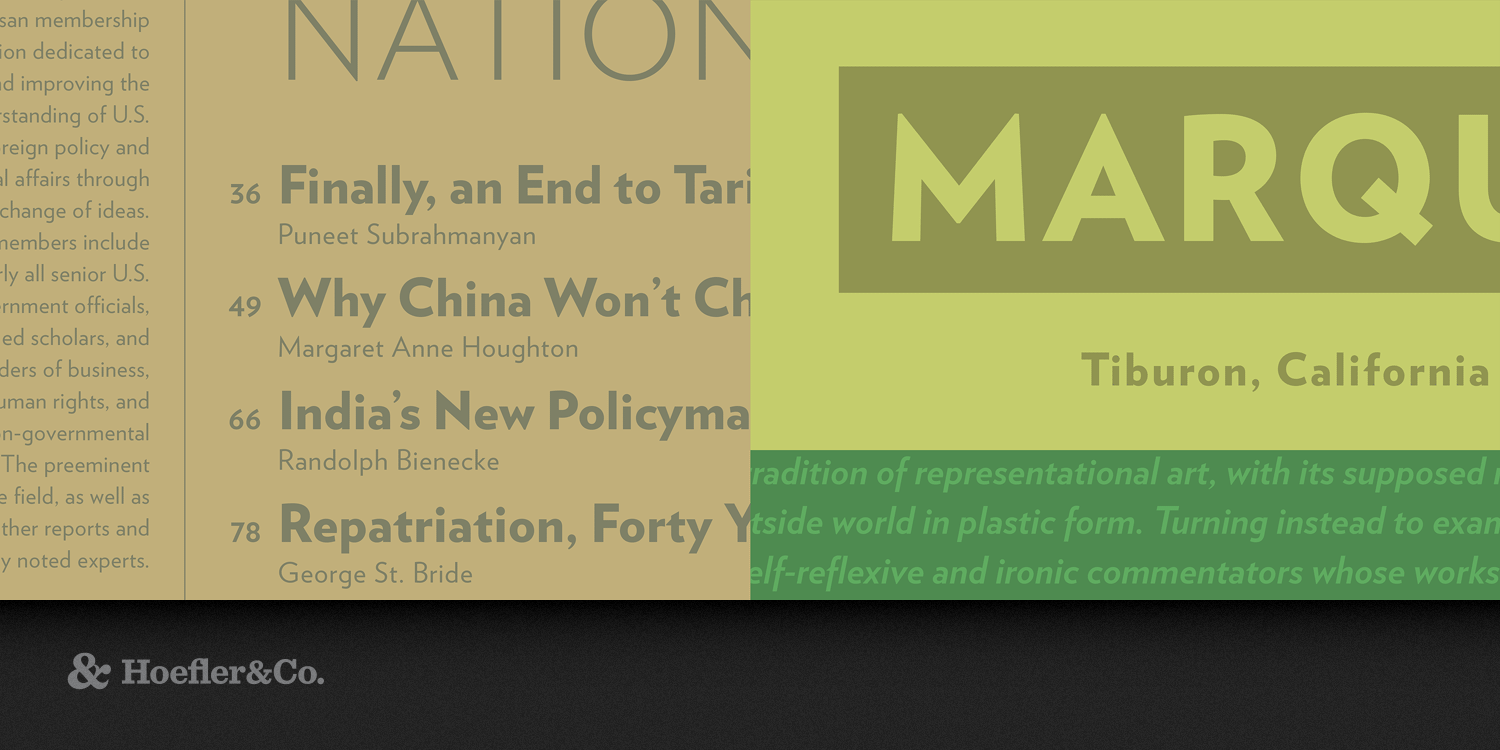
Verlag Font Free Download is a clean, modern sans-serif typeface designed with precision and versatility in mind. Its geometric shapes and open letterforms create a contemporary aesthetic that works perfectly across a wide range of design projects, from branding and editorial layouts to web and app interfaces.
Known for its excellent legibility and balanced proportions, Verlag is a favorite among graphic designers, UI/UX professionals, and marketers who seek a font that delivers clarity without compromising style. Whether you’re creating logos, headlines, or body text, Verlag provides the flexibility and professionalism needed to elevate your work.